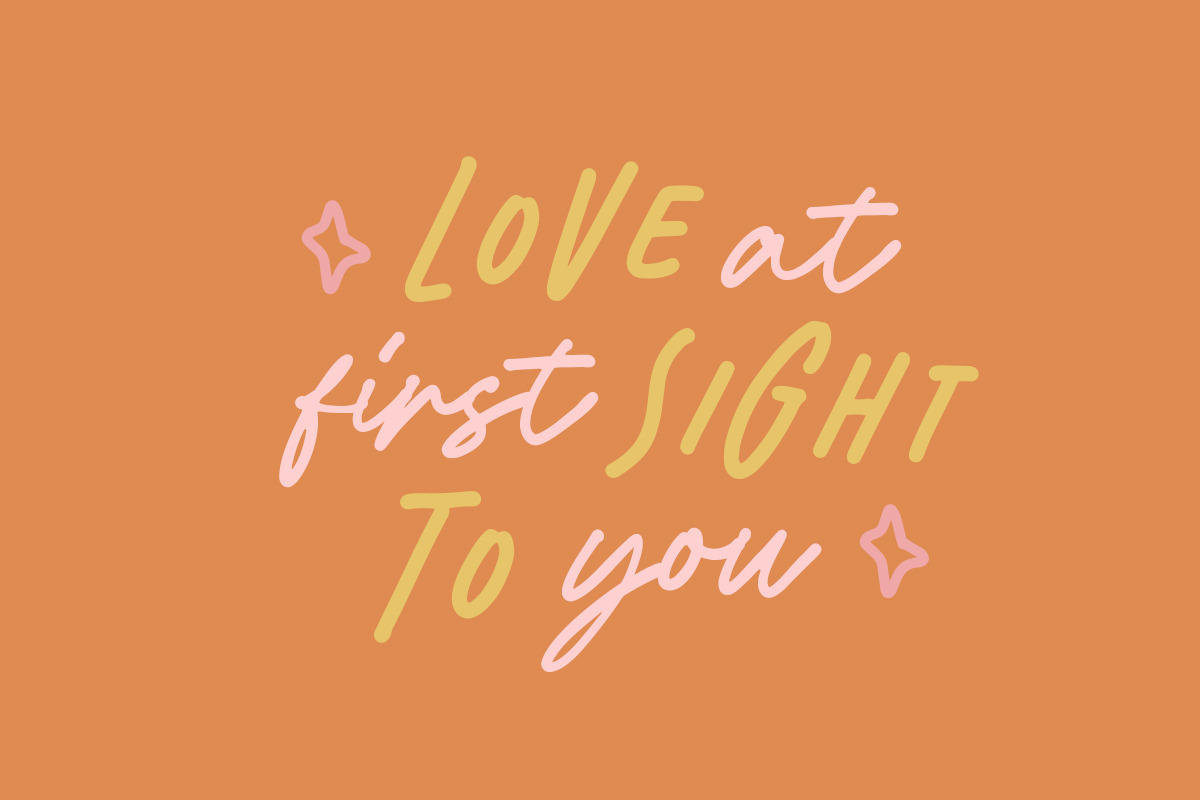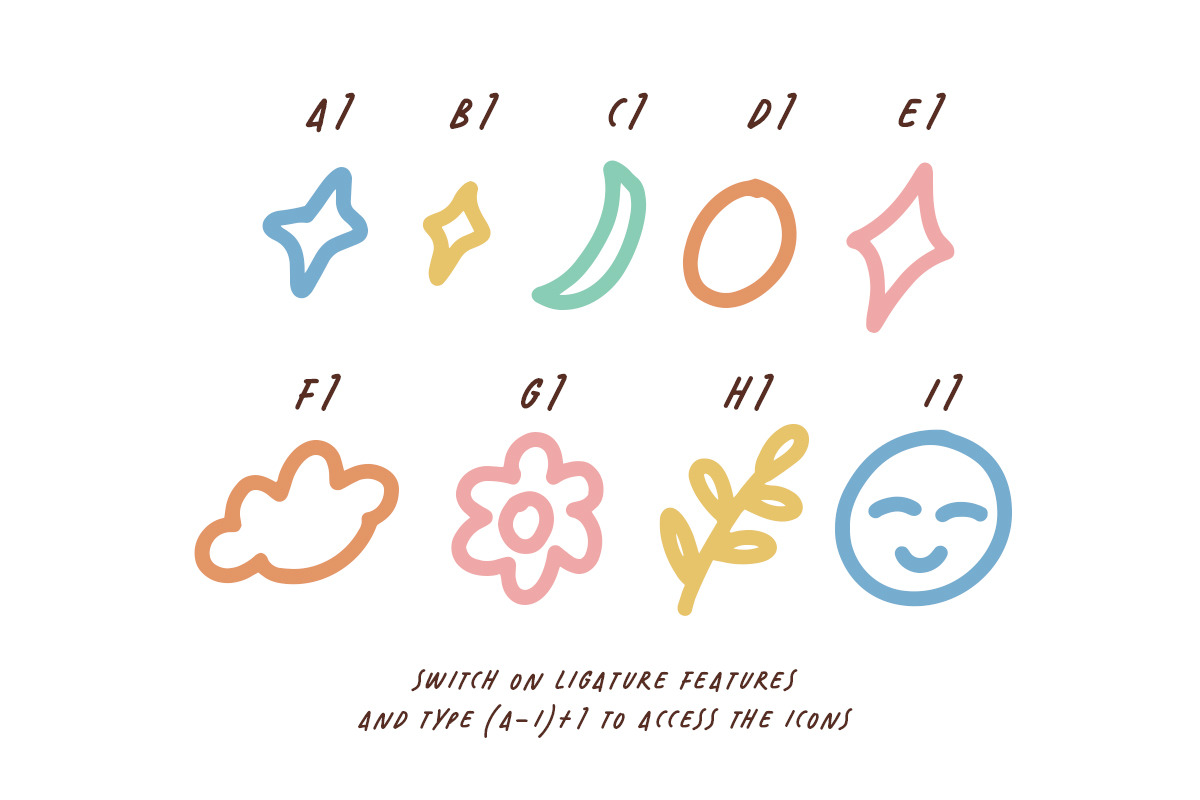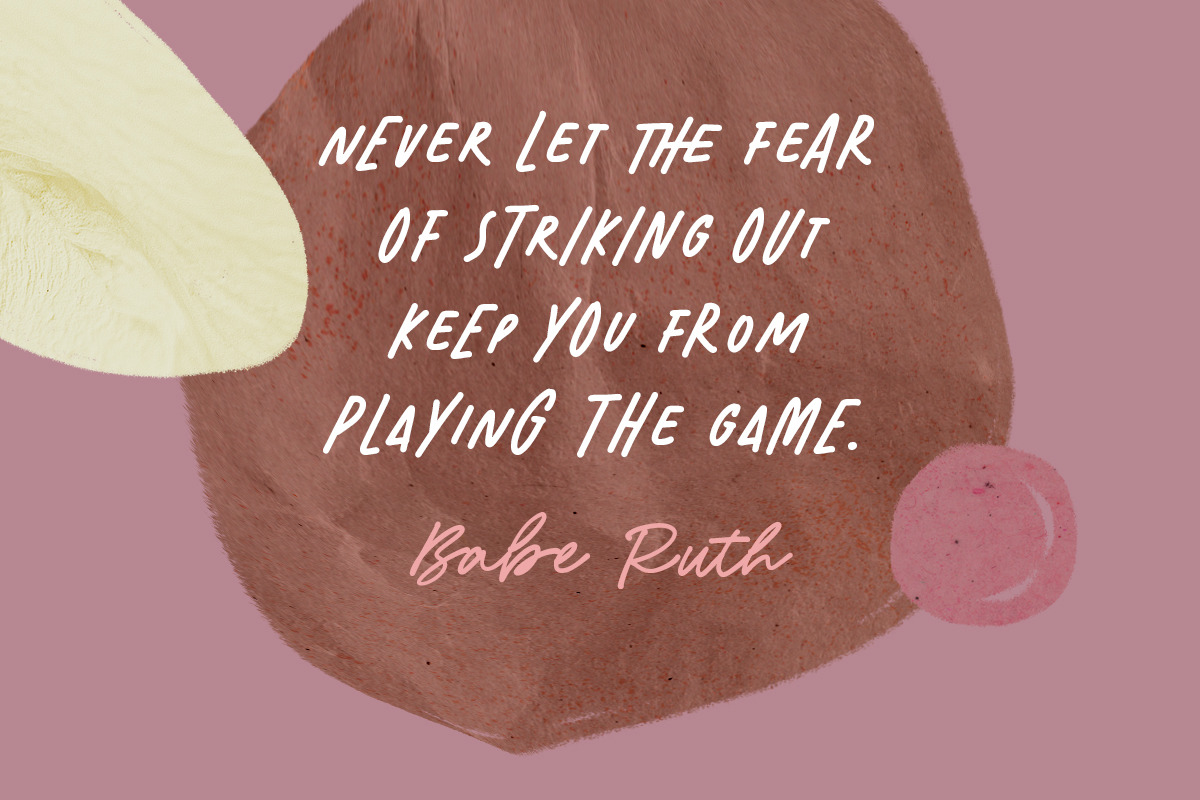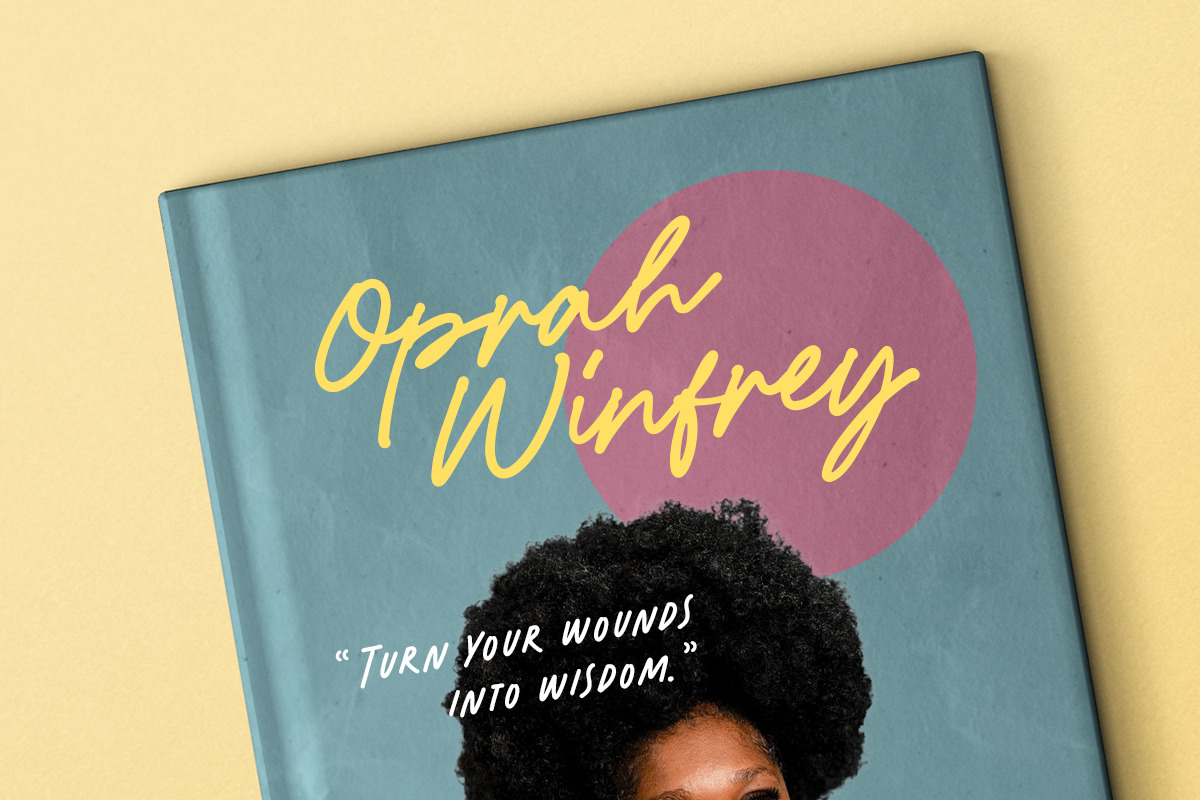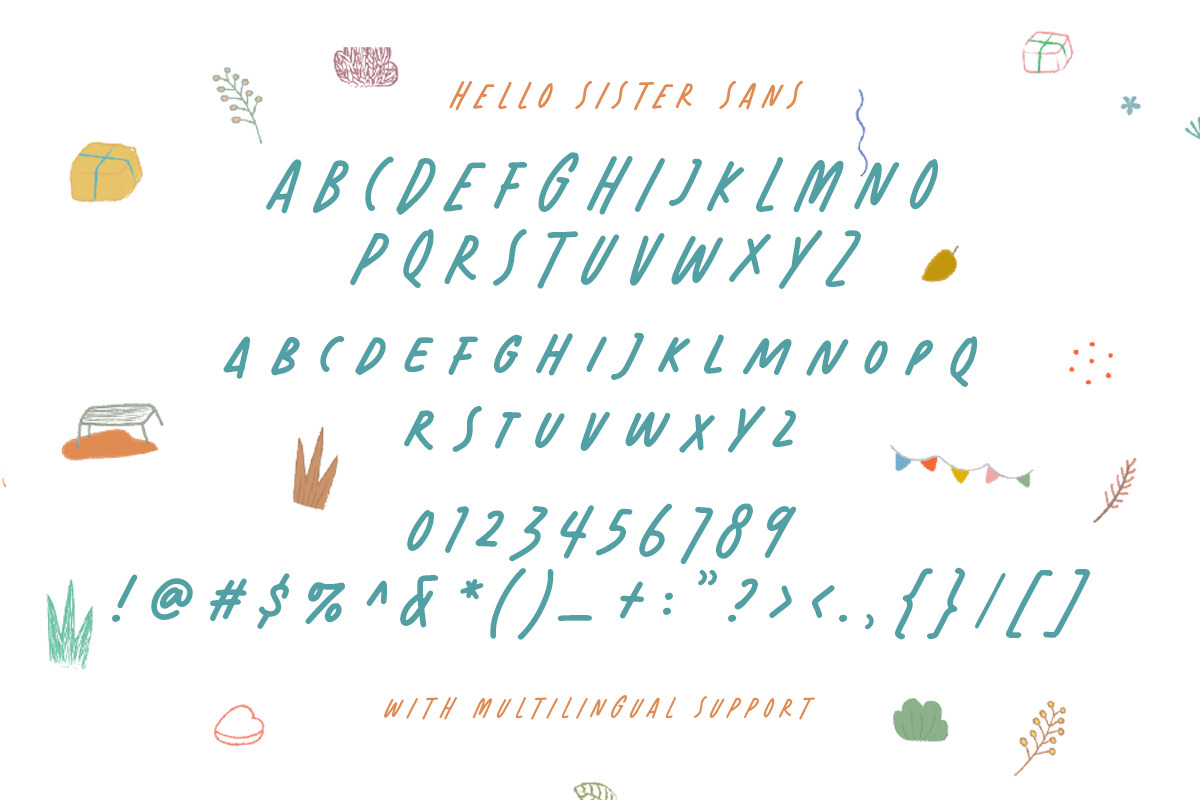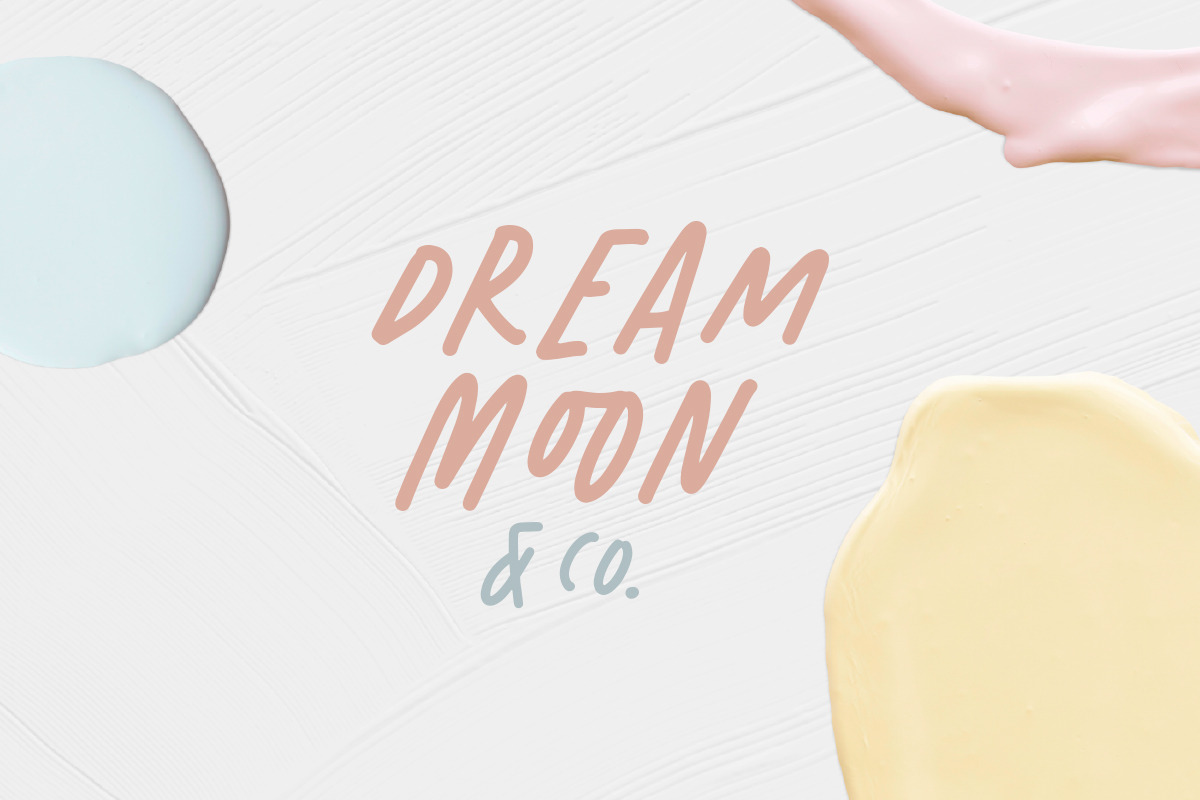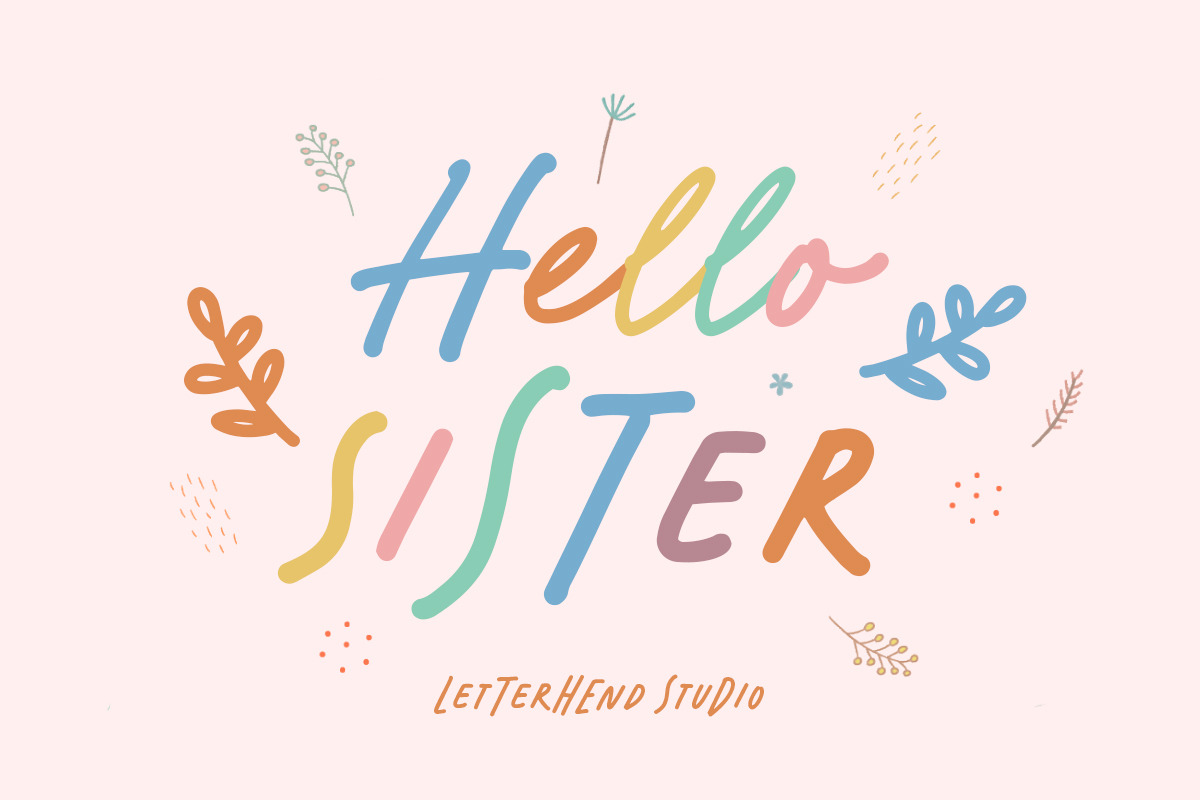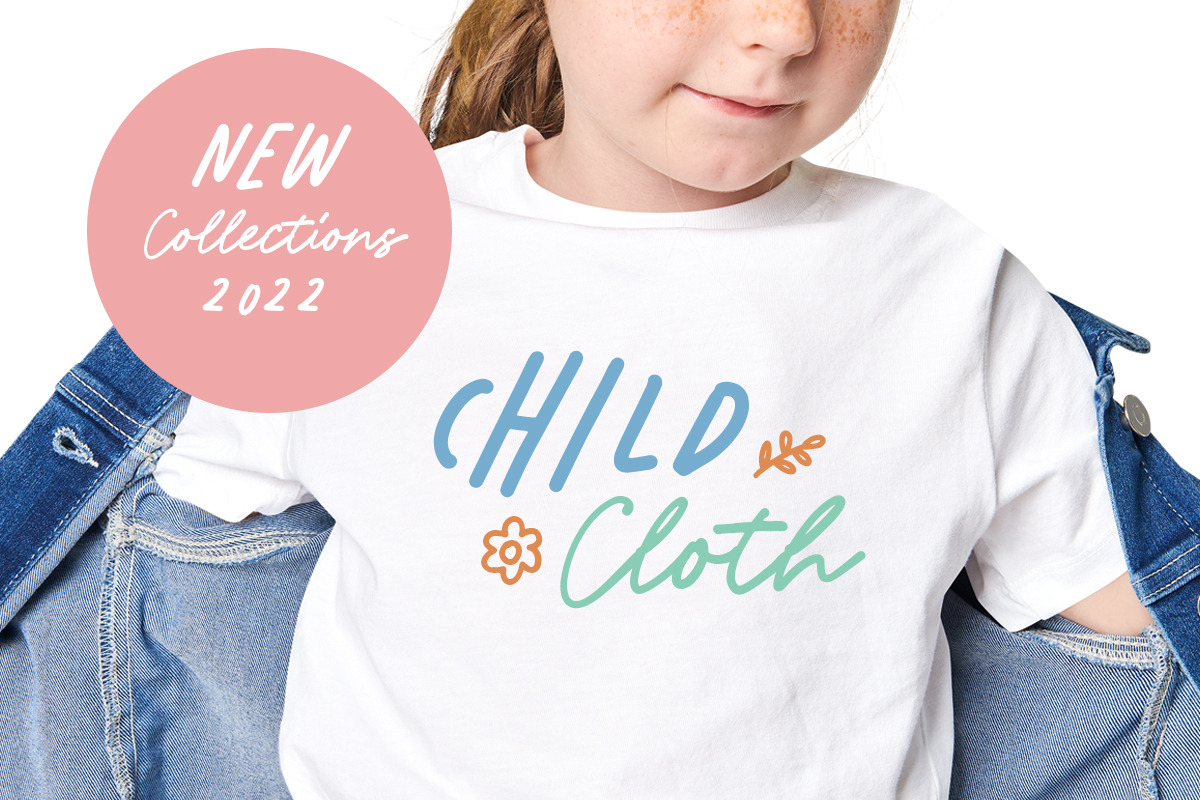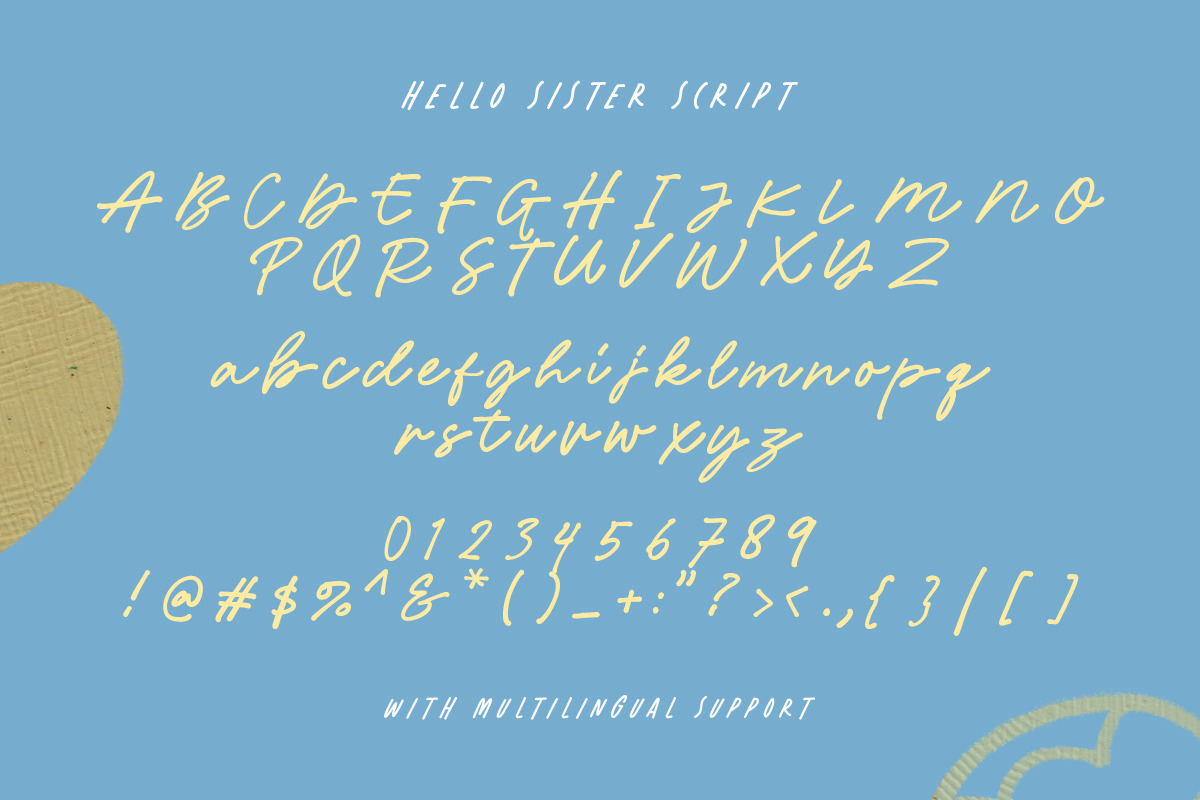
Hello Sister - Fun Girly Font Duo
Hello Sister is a pair of font that brings the fun, playful look with feminine feel. The handwritten sans serif combined with the natural hand writing script are the perfect match for you who needs a typeface for headline, logotype, apparel, invitation, branding, packaging, advertising etc.
- 2 fonts (sans serif and script font)
- alternates & ligatures